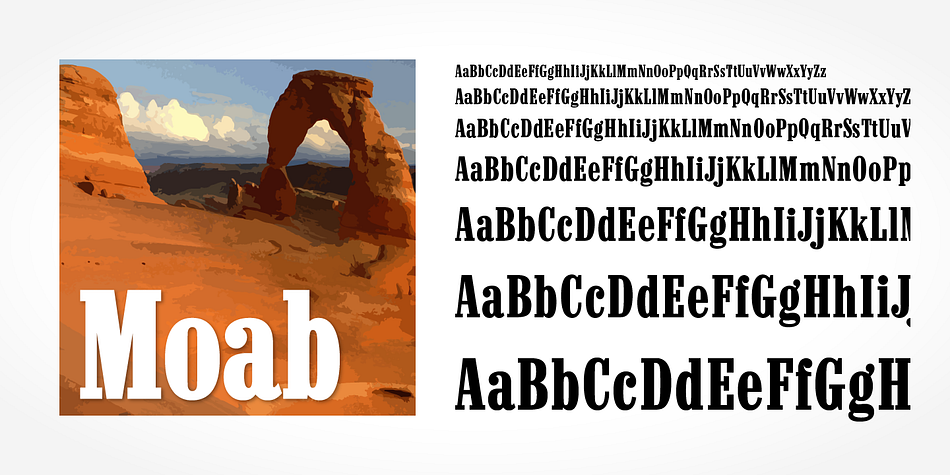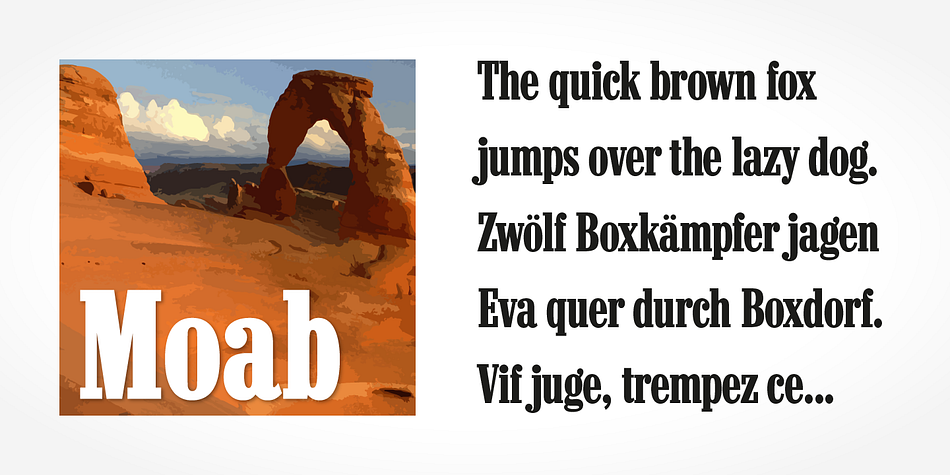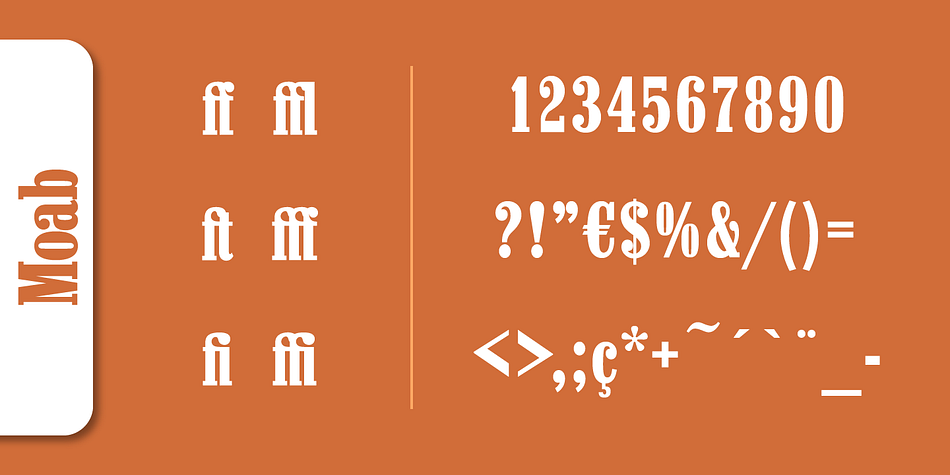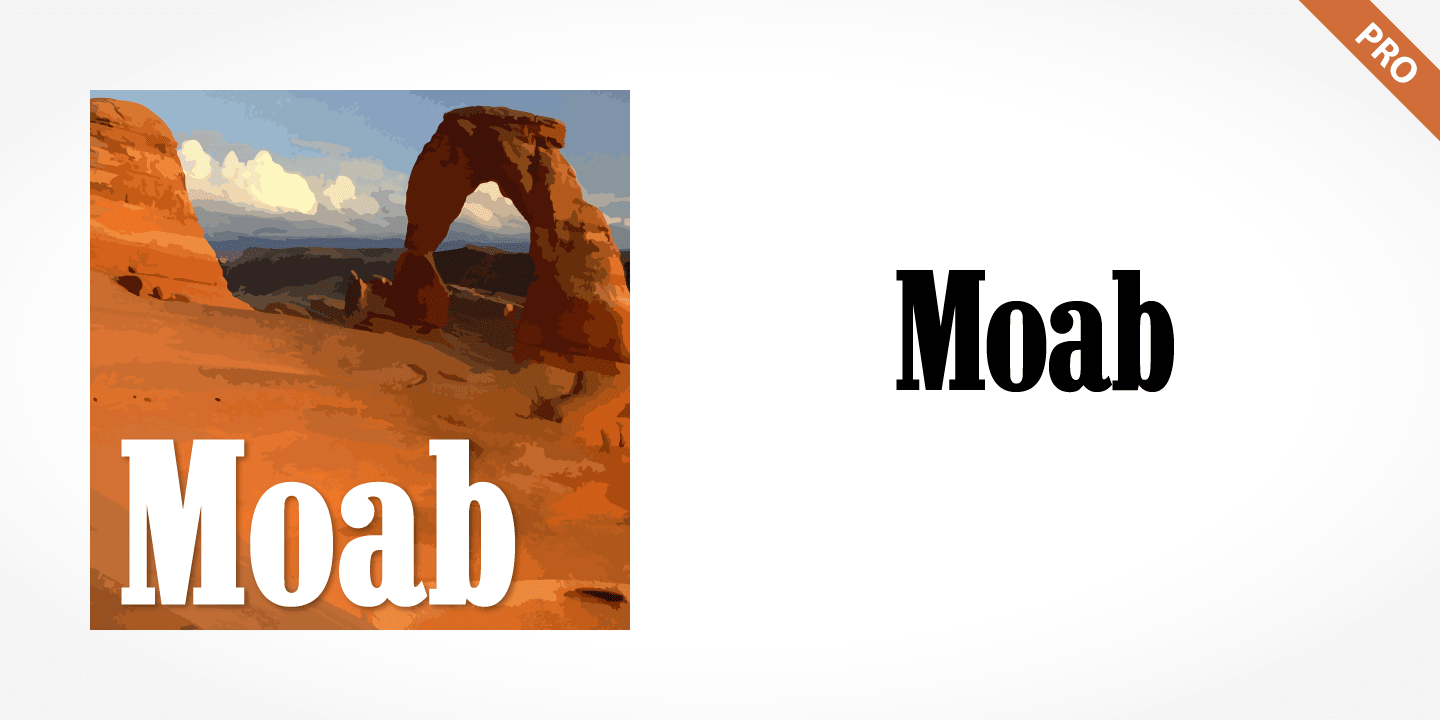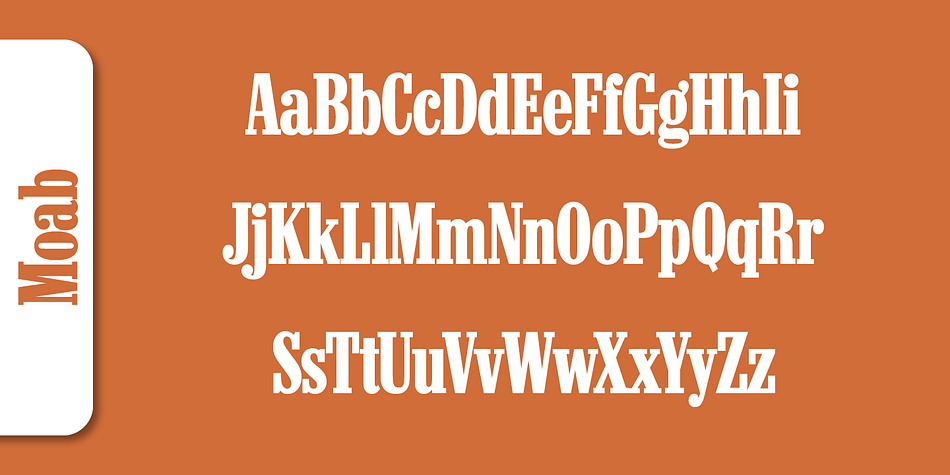
Moab Pro
Moab Pro is a slab serif font published by SoftMaker.
Moab Pro is the typeface used on the packaging of a well-known brand of cigarettes. The typeface is bold and condensed, designed in the Egyptienne style. Egyptienne types were first designed in the 1800s, as type founders - especially in the westward-expanding United States - began to dream up newer, bolder styles of letters for advertising usage. During the 1800s, it became increasingly important for businesses to set themselves, and their products, apart from competitors. This desire has remained with corporations, as well as with advertisers and designers, into the 21st century.
In addition to cigarette packaging, Moab Pro can be seen on numerous items, including Ferrari’s F1 racers, and at Formula 1 race tracks.
The letters in Moab Pro are filled with personality. Their forms display two distinct weights of line, and the serifs are made up of tiny, strict slabs. Ball terminals round out the design. Moab Pro is a complete font, with a complete western character set.
Typefaces in the Egyptienne style proceeded the development and distribution of larger, crazier wood typefaces, but also share many similarities with these descendants.